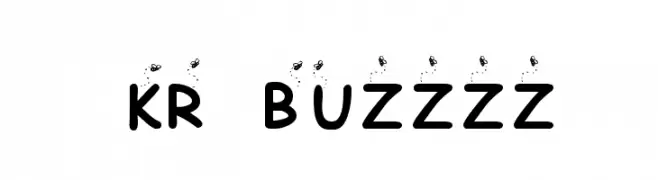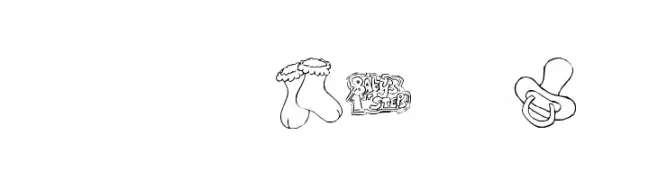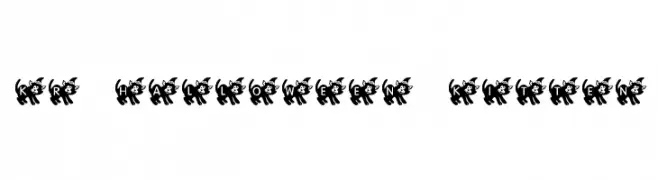
A decorative font with script-style letters enclosed in heart shapes, ideal for romantic designs.
A playful, hand-drawn font with buzzing bee illustrations and rounded, bold letters.
A playful font with characters inside balloon shapes, perfect for festive designs.
A playful Halloween-themed font with letters inside black cat silhouettes.
A playful font with letters and numbers inside teapot designs, featuring a cursive style.
A decorative font with letters inside heart shapes, featuring floral and envelope motifs.
A playful dingbat font with child-themed illustrations and candle-styled numbers.
A decorative font with characters encased in festive wreaths, perfect for holiday themes.
A playful, Halloween-themed font with letters inside cartoon ghost figures.
A decorative font with script letters inside black heart shapes.